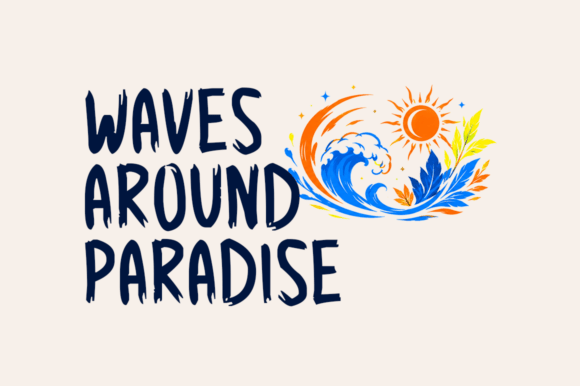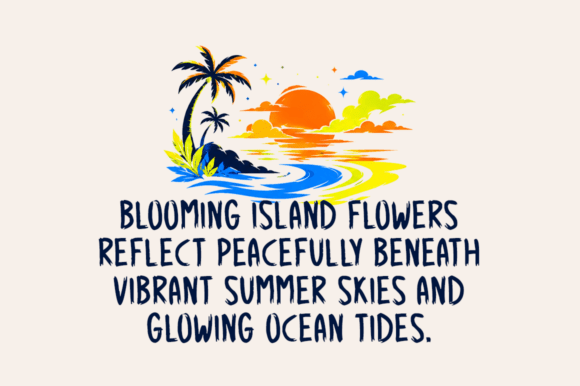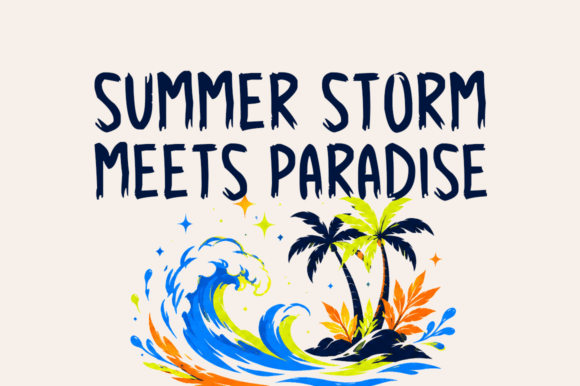
Dreamy Summer Font: Capture the Magic of Tropical Nights and Island Adventures
Are you looking for a font that embodies the carefree spirit of summer? Do you want to evoke the magical energy of tropical nights, glowing waves, and vibrant island adventures in your designs? Look no further than the Dreamy Summer font, a beautiful and bold typeface that captures the essence of the season.
Inspired by Nature’s Beauty
The Dreamy Summer font is inspired by the breathtaking landscapes of the ocean and the island paradise. The gentle ocean tides, the blooming flowers, and the mystical summer vibes have all come together to create a font that is both playful and elegant. The font’s design is a perfect blend of artistic spirit and sophistication, making it ideal for a wide range of creative projects.
Perfect for Beach-Themed Branding and Designs
The Dreamy Summer font is perfect for beach-themed branding, apparel, posters, stickers, social media graphics, and colorful seasonal creative projects. Whether you’re designing a logo for a beachwear brand, creating a poster for a summer music festival, or making a social media graphic for a tropical getaway, this font is sure to make your designs stand out.
Key Features of Dreamy Summer Font
• Playful Elegance: The Dreamy Summer font has a playful yet elegant design that is perfect for creating eye-catching and sophisticated designs.
• Bold Artistic Spirit: The font has a bold artistic spirit that makes it perfect for creative projects that require a touch of personality.
• Tropical Vibes: The font is inspired by the tropical landscapes of the ocean and the island paradise, making it perfect for beach-themed designs.
• Versatile: The Dreamy Summer font is versatile and can be used for a wide range of creative projects, from branding and advertising to social media graphics and posters.
How to Use Dreamy Summer Font in Your Designs
The Dreamy Summer font can be used in a variety of ways to add a touch of tropical magic to your designs. Here are a few ideas to get you started:
• Beach-Themed Branding: Use the Dreamy Summer font to create a logo or branding materials for a beachwear brand or a company that wants to evoke the feeling of a tropical getaway.
• Summer Posters: Use the font to create eye-catching posters for summer events, such as music festivals or outdoor concerts.
• Social Media Graphics: Use the font to create social media graphics that capture the essence of the summer season, such as graphics for Instagram or Facebook.
• Apparel: Use the font to create fun and stylish apparel, such as t-shirts or tote bags, that are perfect for the summer season.
Tips for Getting the Most Out of Dreamy Summer Font
Here are a few tips for getting the most out of the Dreamy Summer font:
• Experiment with Colors: The Dreamy Summer font looks great with bright and bold colors, so don’t be afraid to experiment with different color combinations.
• Use it with Other Summer-Themed Elements: Use the font with other summer-themed elements, such as palm trees or flamingos, to create a cohesive and eye-catching design.
• Play with Font Sizes: Play with different font sizes to create visual interest and add depth to your designs.
The Dreamy Summer font is a beautiful and bold typeface that captures the magical energy of tropical nights and island adventures. With its playful elegance and bold artistic spirit, it’s perfect for beach-themed branding, apparel, posters, stickers, social media graphics, and colorful seasonal creative projects. Whether you’re a designer or a crafter, this font is sure to inspire your creativity and help you create stunning designs that evoke the feeling of a tropical paradise.